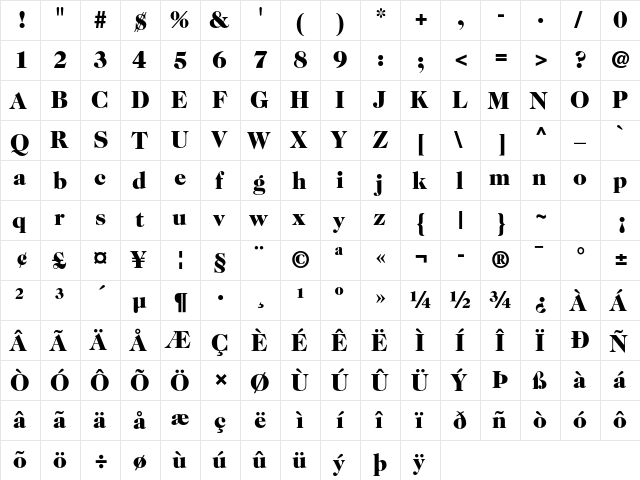
ITC Caslon 224 Std Black Font Preview
ITC Caslon 224 Std Black
ITC Caslon 224 Std Black Font Details
| Designer | Ed Benguiat |
Design Context for ITC Caslon 224 Std Typeface
ITC Caslon 224 Std offers clean, dependable letterforms without strong stylistic allegiance, making it a practical choice for designers who need flexibility.